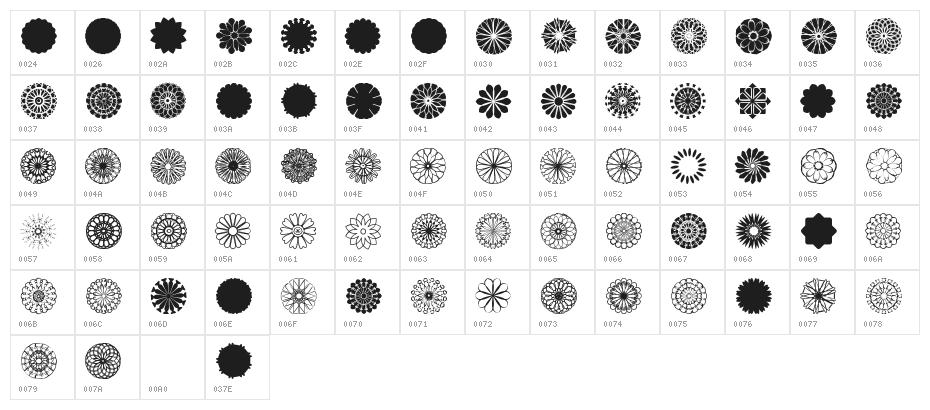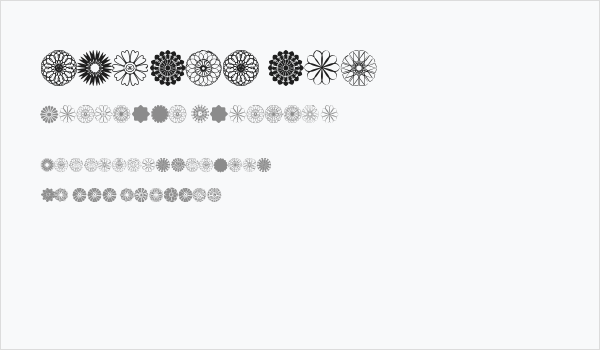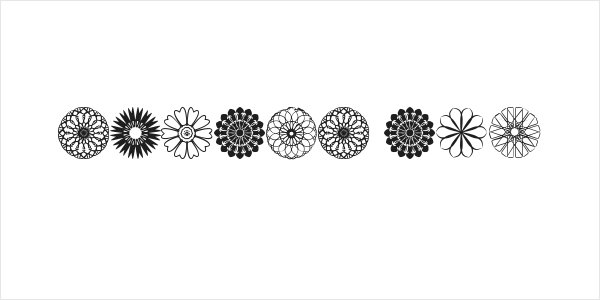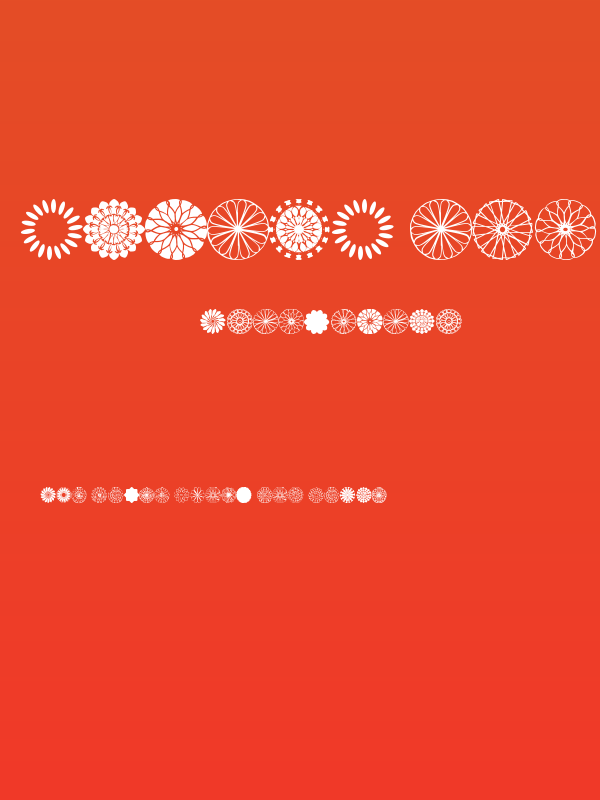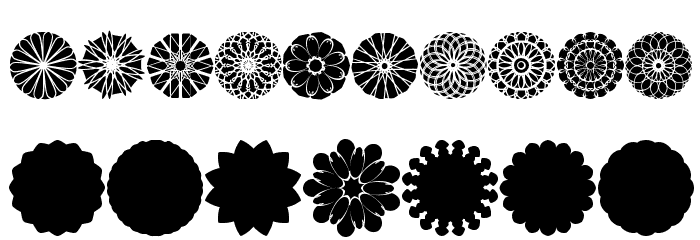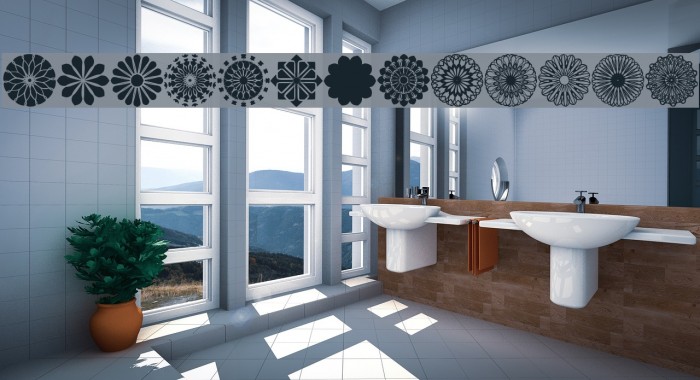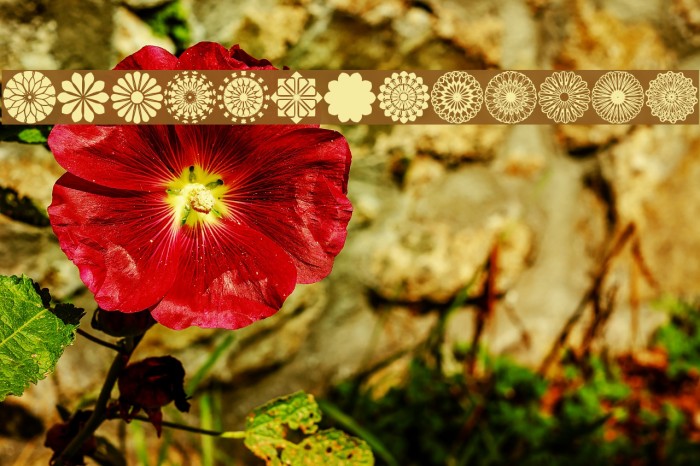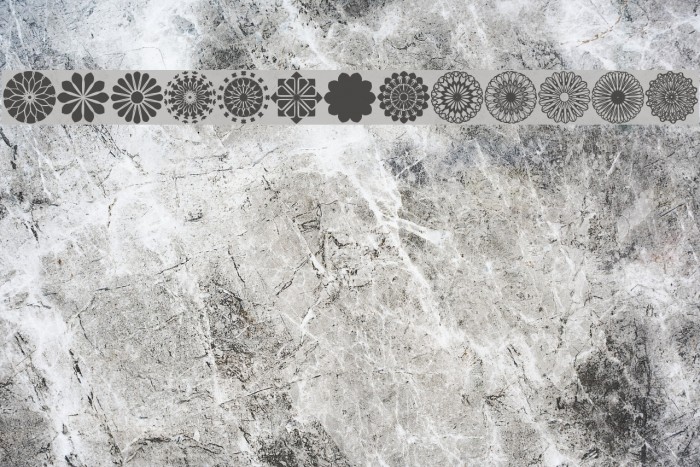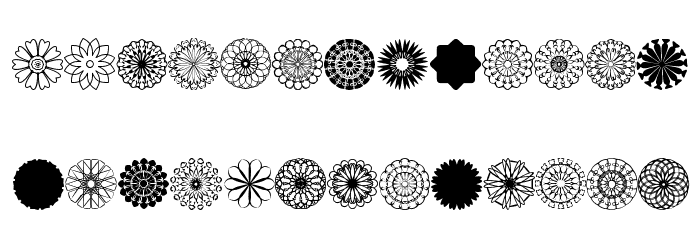
shapes pro Font
shapes pro Description
A diverse collection of decorative, floral-inspired vector shapes with varying levels of detail, ranging from solid silhouettes to intricate linework, all presented in a circular format.
| Overall Style | Decorative, Ornamental, Floral |
| Use Case | Logos, Decorative elements, Patterns, Invitations |
| Proposed Projects | Logo design, decorative borders, invitations, scrapbooking, digital art, pattern creation, branding elements. |